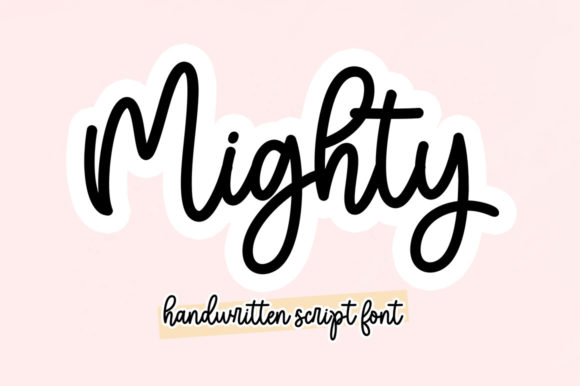
Introducing Mighty Font, the captivating script font that dances across your designs with its enchanting charm. Softcreative50, the mastermind behind this exquisite creation, has poured their heart and soul into crafting each letterform, ensuring an extraordinary level of detail and finesse.
Immerse yourself in Mighty Font's captivating curves and intricate swashes, designed to evoke a sense of elegance and sophistication in your creative endeavors. Whether you're a seasoned designer or just starting your journey into the world of typography, Mighty Font will elevate your projects to new heights.
Unleash your creativity with Mighty Font's versatility. Its graceful strokes adapt effortlessly to a multitude of design styles, from elegant wedding invitations to playful social media posts, from captivating logos to captivating branding materials. Let Mighty Font become your trusted companion, guiding you towards design excellence.
With Mighty Font at your disposal, you'll discover endless possibilities to captivate and inspire your audience. Craft heartfelt greeting cards that convey your deepest emotions, create digital designs that resonate with your brand's unique identity, or elevate your presentations with a touch of timeless sophistication.
Step into the realm of beauty and elegance, where Mighty Font reigns supreme. Let your imagination soar and allow this remarkable font to transform your creative visions into reality. Its timeless charm and versatility will leave an unforgettable impression on your audience, leaving them captivated and inspired.